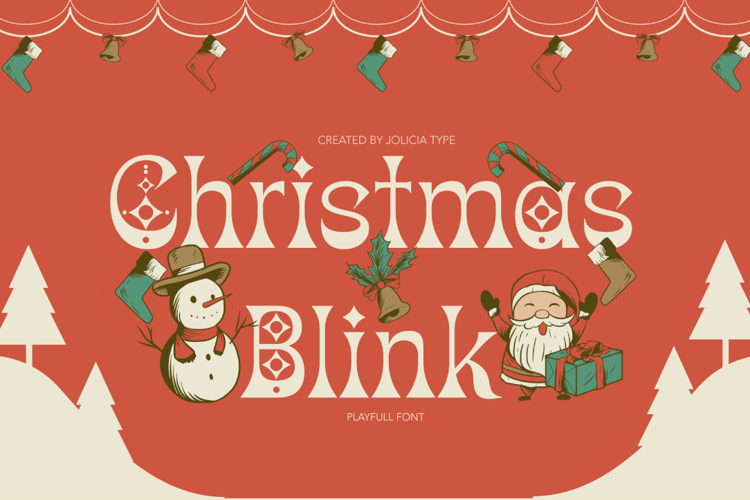
Christmas Blink Font
About Christmas Blink Font
Introducing Christmas Blink, the perfect festive font to add a touch of
holiday magic to your designs! This whimsical and joyful typeface is
specially crafted to bring the spirit of Christmas to life in your creative
projects.